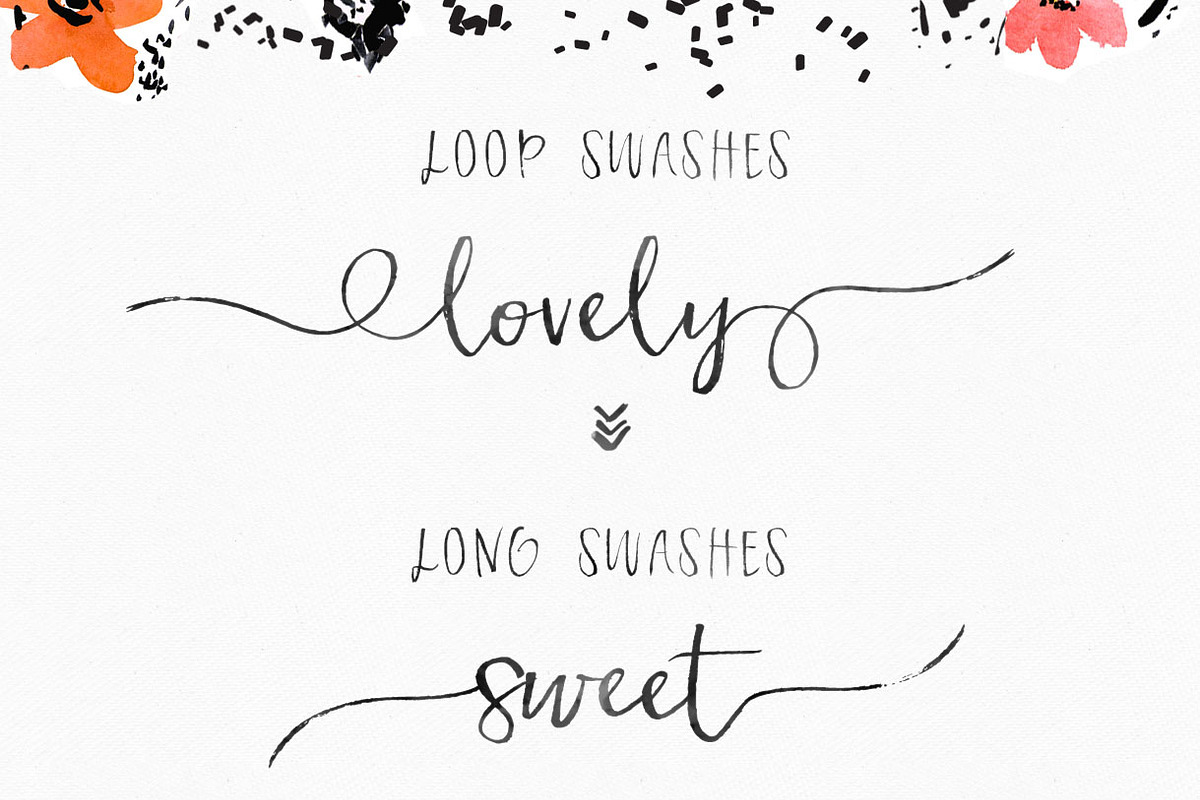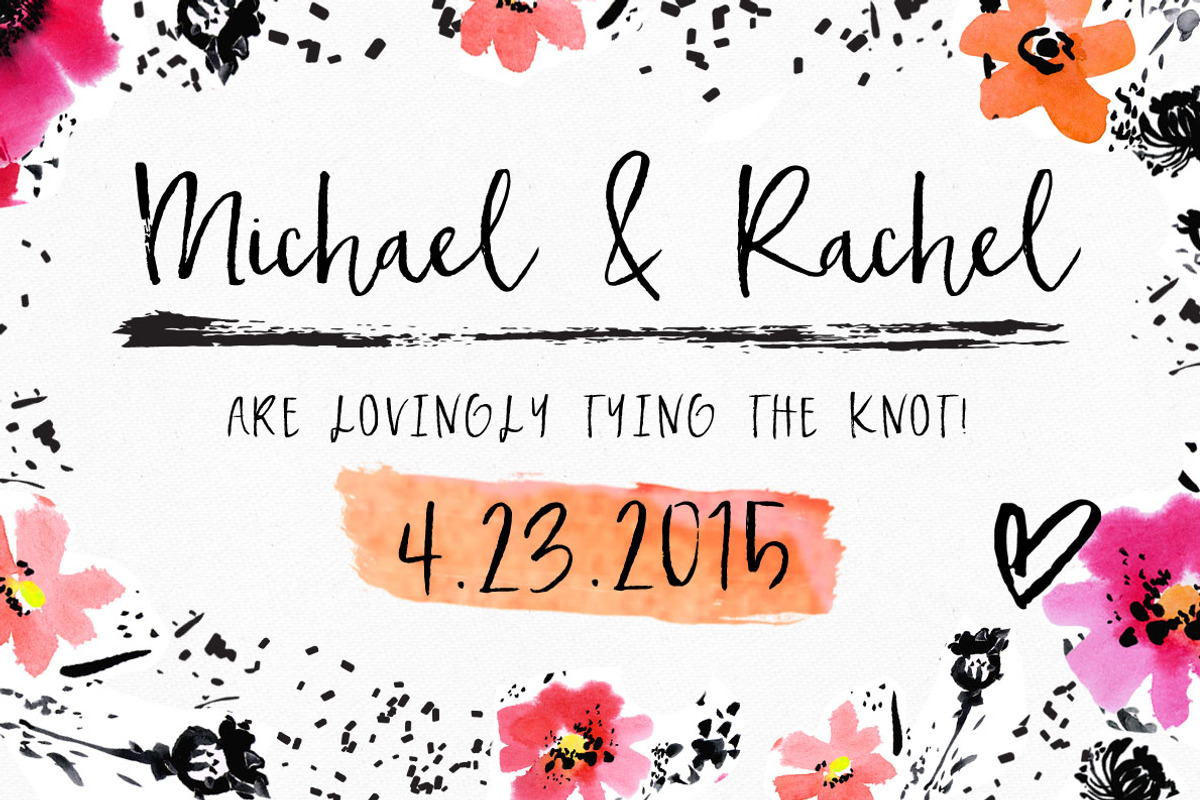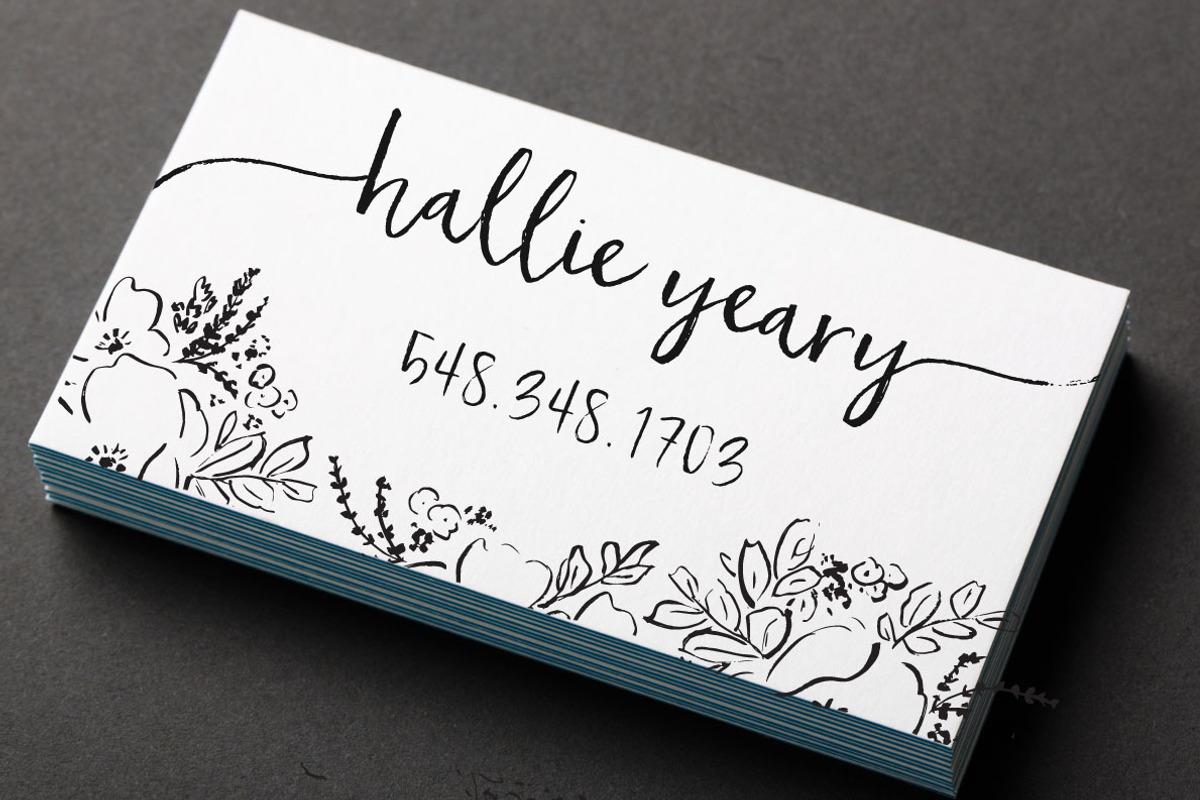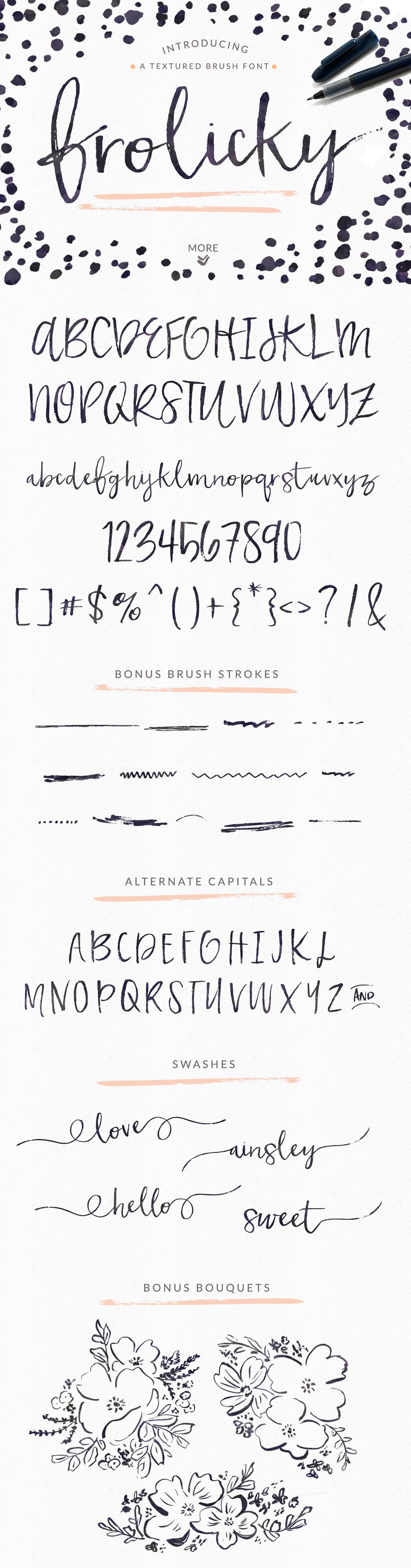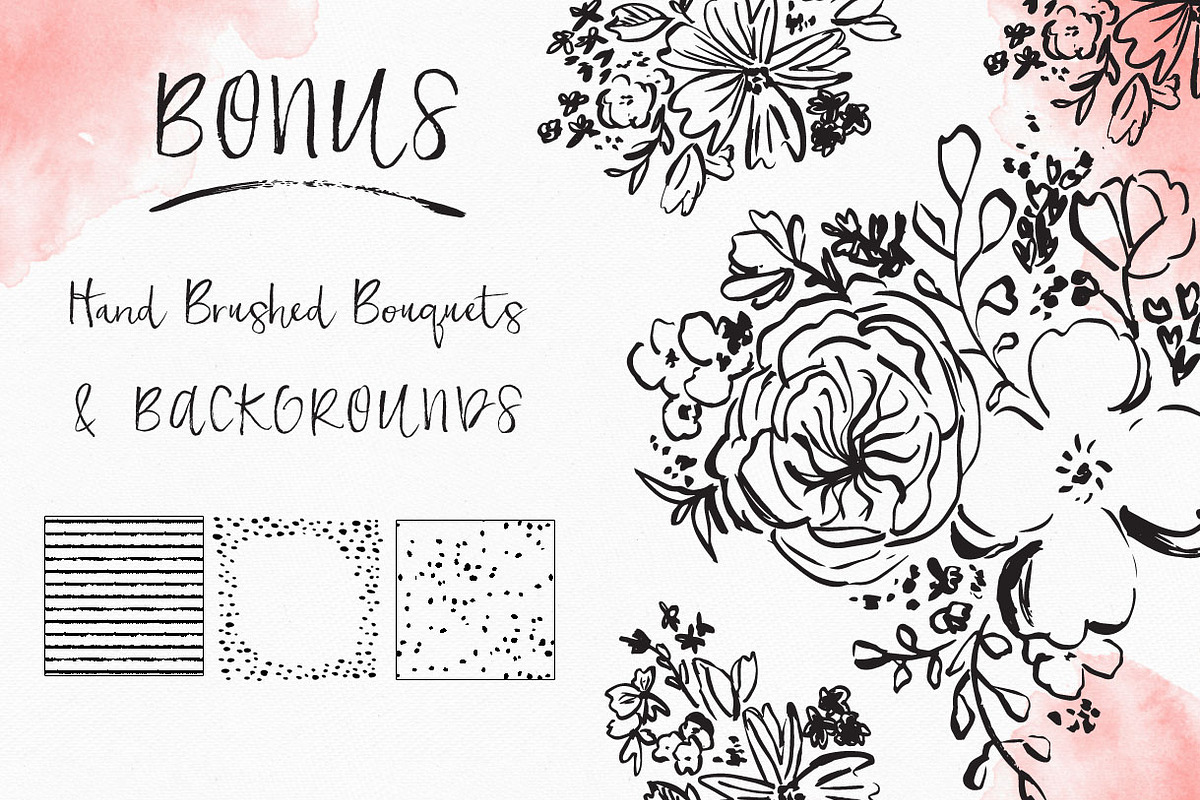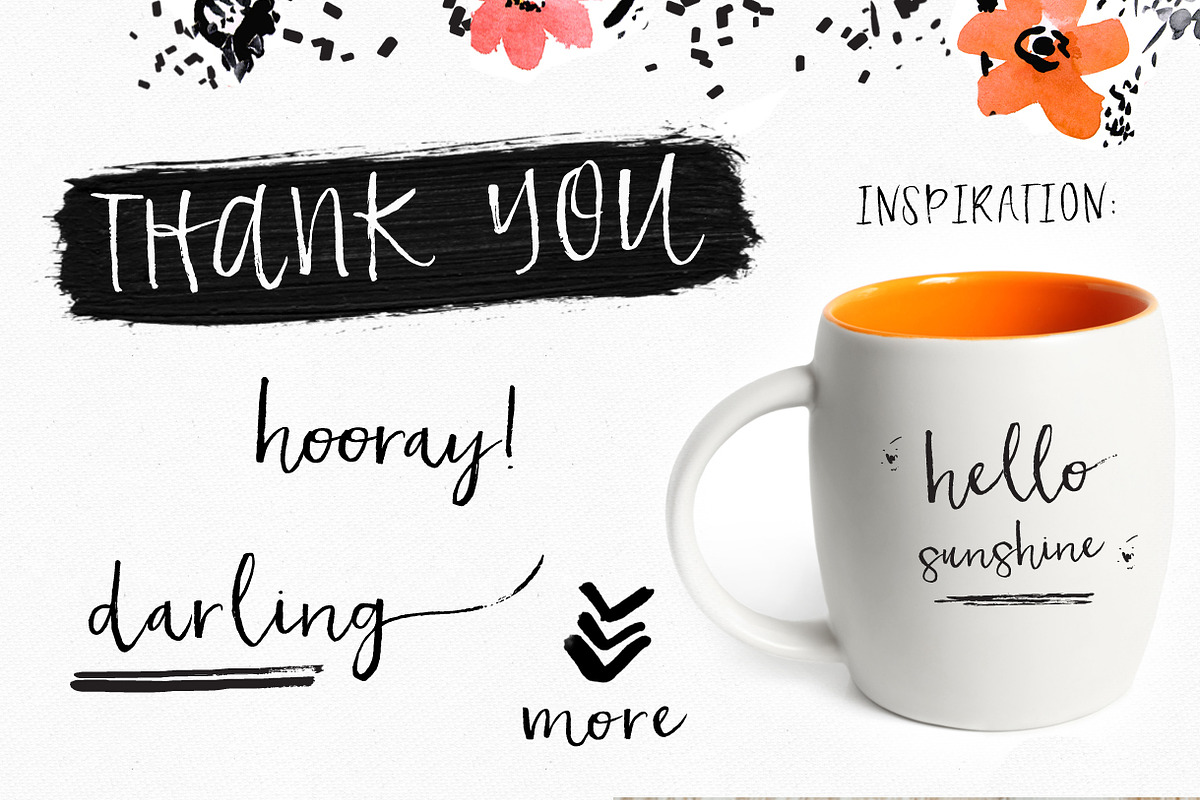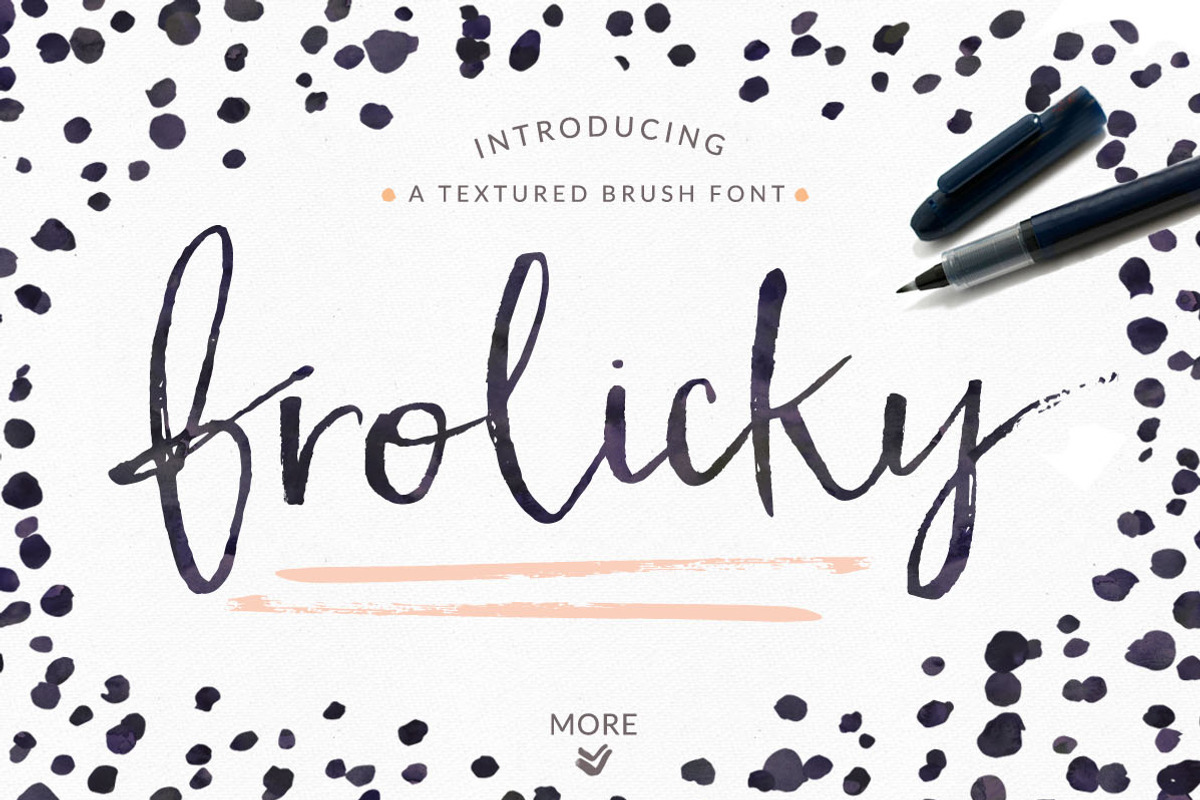
Frolicky - A Brushed Font + EXTRAS
Meet Frolicky, a fancy little brush font with that coveted dry brush edge. Crafted with care so that the rough brush strokes, edges, and bits & bobs can create a convincing hand brushed feel.
- Frolicky Regular- A dry brushed beauty
- Frolicky Alternate Caps- A separate set of capital letters that pairs with Frolicky Regular
- Frolicky Brush Lines- Includes various dry brush strokes, painted lines, letter tails, and details so you can create and make to your heart's desire.
- Frolicky Swash- Add long swashes to the front and end of your lowercase letters. Type lowercase a-z for the initial (front) swashes and type uppercase A-Z for the terminal (end) swashes.
- Frolicky Loop Swash- Add long loop swashes to the front and end of your lowercase letters. Type lowercase a-z for the initial (front) loop swashes and type uppercase A-Z for the terminal (end) loop swashes.